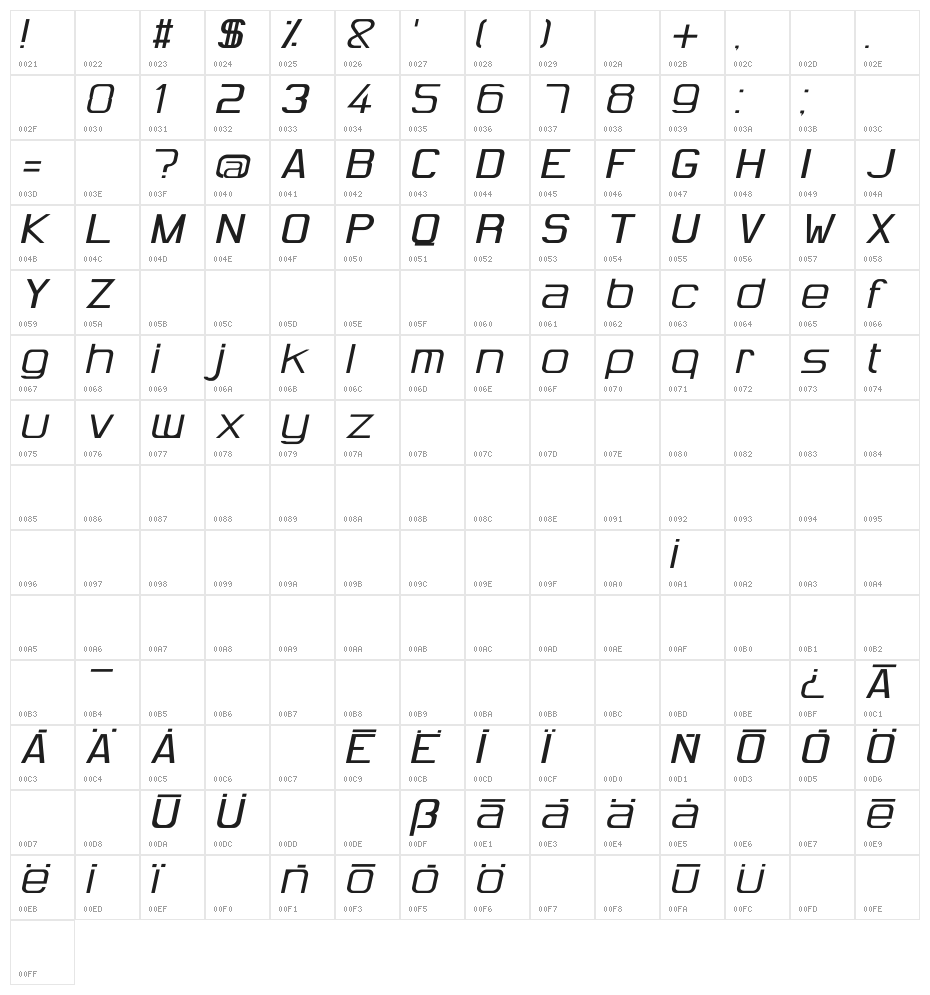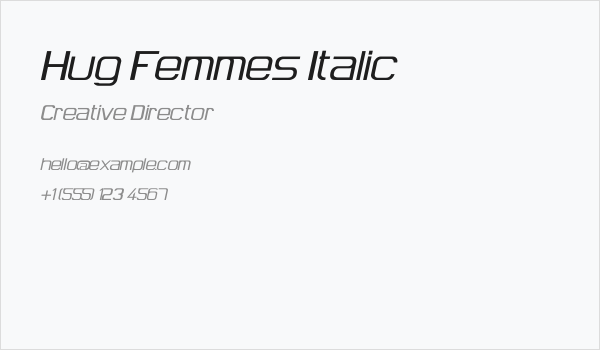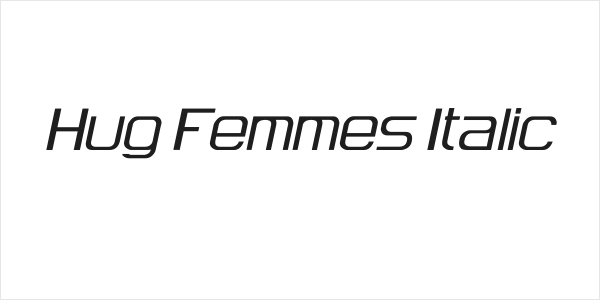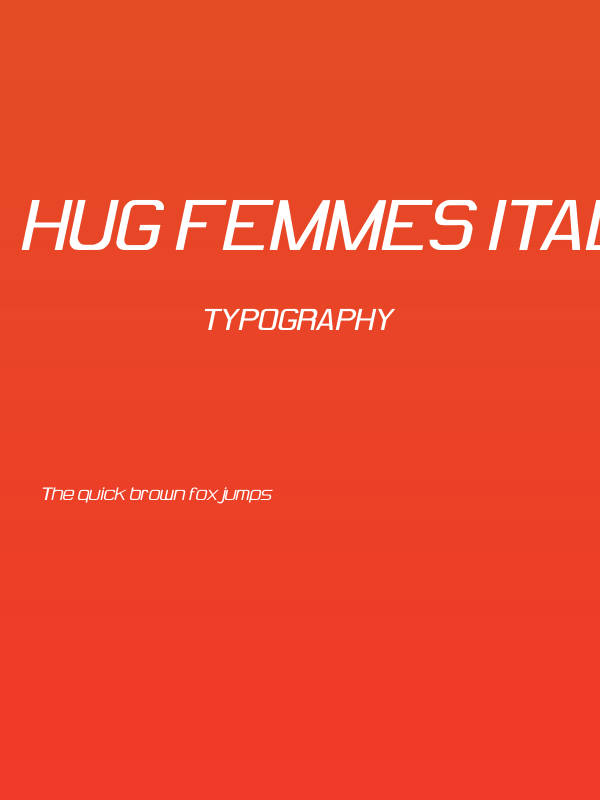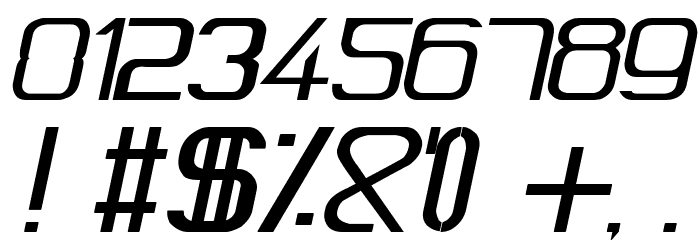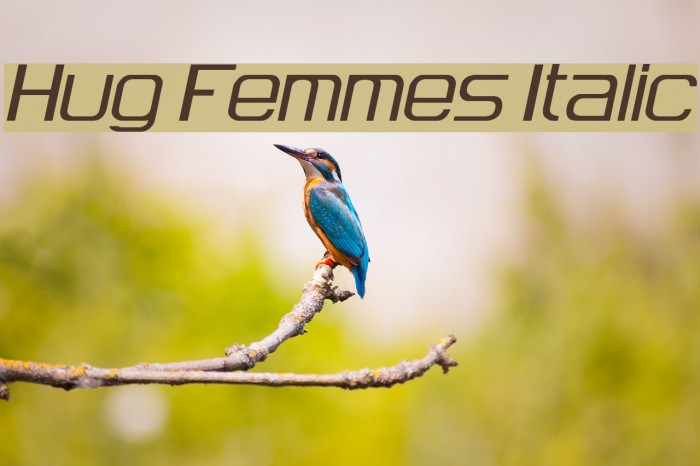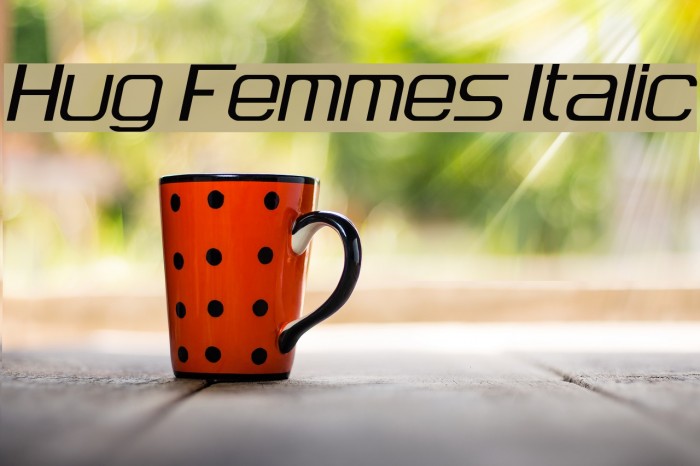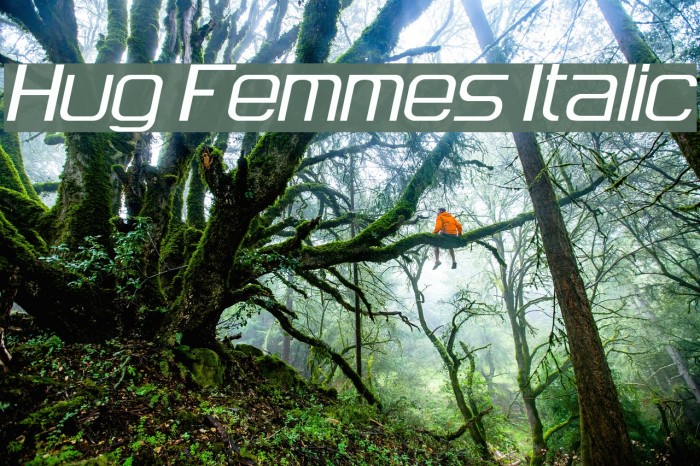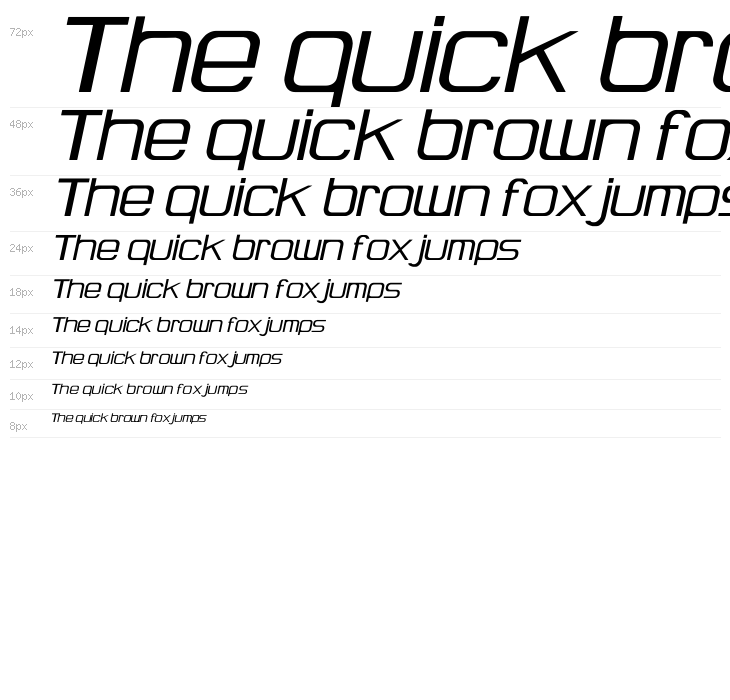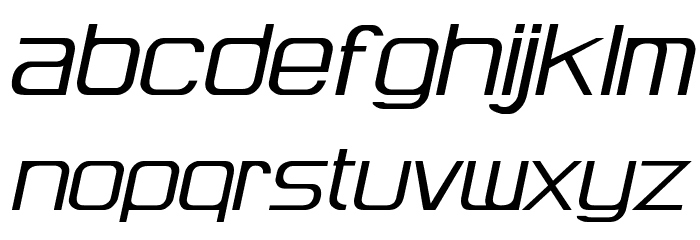
Hug Femmes Italic Font
Hug Femmes Italic Description
This font features a sleek and modern italic style with a distinct slant that gives it a dynamic and forward-moving appearance. The characters are designed with a geometric precision, showcasing clean lines and a uniform stroke width that maintains readability while adding a touch of elegance. The uppercase letters are bold and assertive, while the lowercase letters maintain a consistent flow, making it versatile for various design applications. The numerals are clear and well-proportioned, and the special characters are crafted to match the overall aesthetic, ensuring a cohesive look across all text elements.